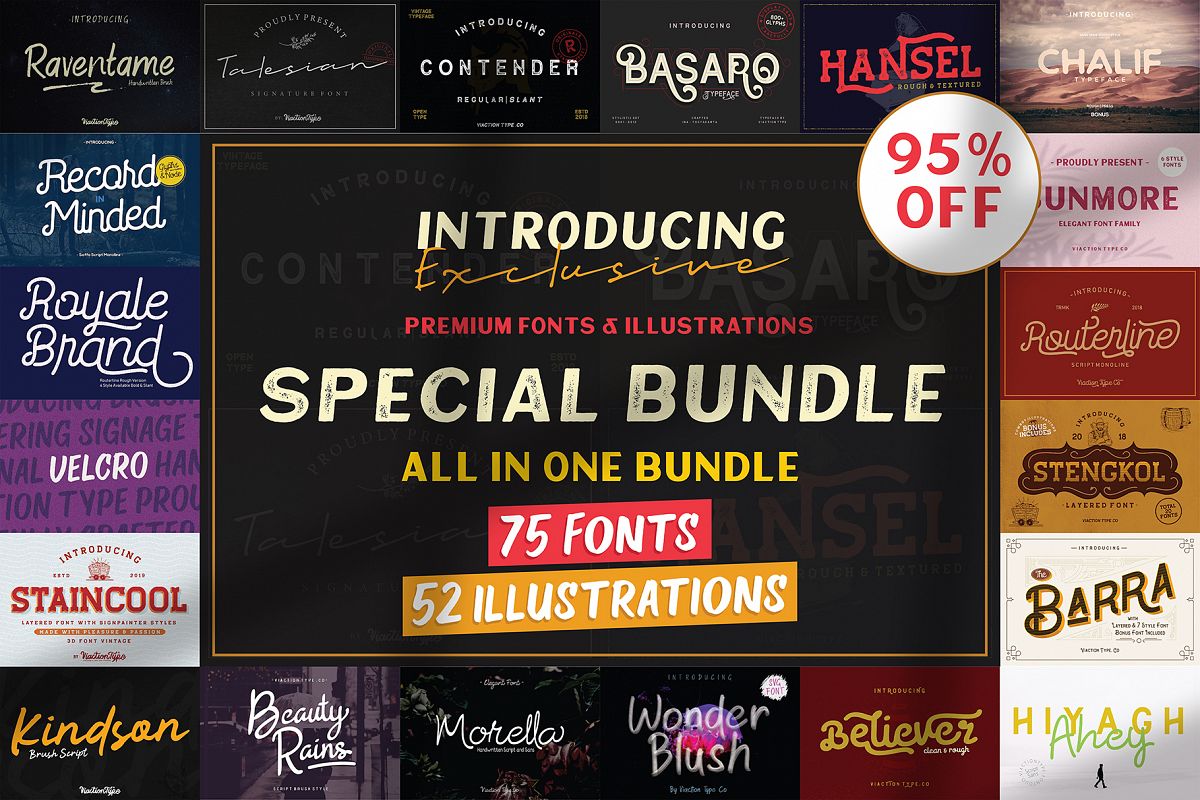
The Special Bundle - Entire Shop
Yes! We from Viaction Type Co have a smart solution to more quickly complete your design work. The Special Bundle is perfect for speeding up your design work and is very easy with products that are diverse such as script fonts, sans serif, slab serif, display fonts & graphic elements such as vintage badges and vintage illustration templates. All that is only in one purchase.